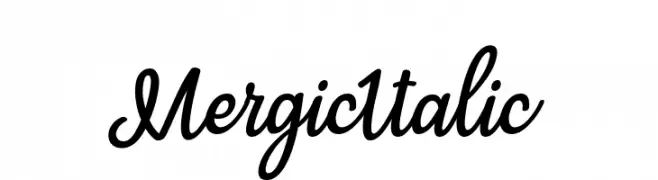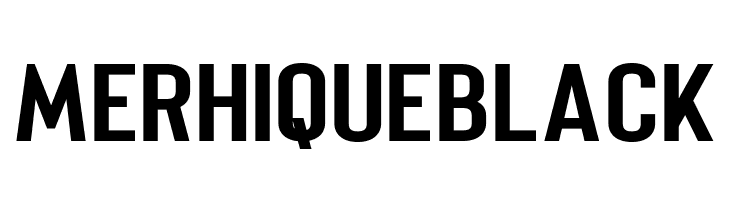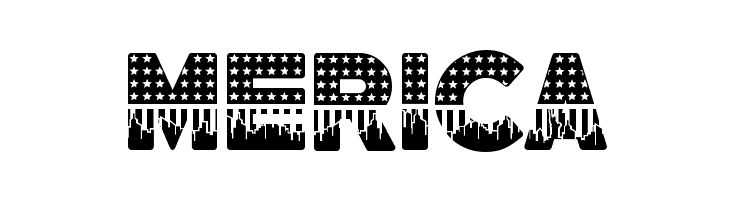
A flowing, cursive font with a smooth, handwritten style.
A playful, handwritten font with a casual and elegant style.
A modern, clean sans-serif font with uniform strokes and a slightly condensed style.
Bold, modern sans-serif font with strong, uniform strokes.
A bold, modern font with geometric shapes and clean lines.
A modern, light sans-serif font with a sleek and professional appearance.
A bold, geometric font with strong, uniform strokes and a modern aesthetic.
A bold, decorative font with American flag motifs, featuring stars and stripes.
An elegant serif font with refined strokes and balanced proportions.
A modern, geometric sans-serif font with uniform stroke width and clear readability.